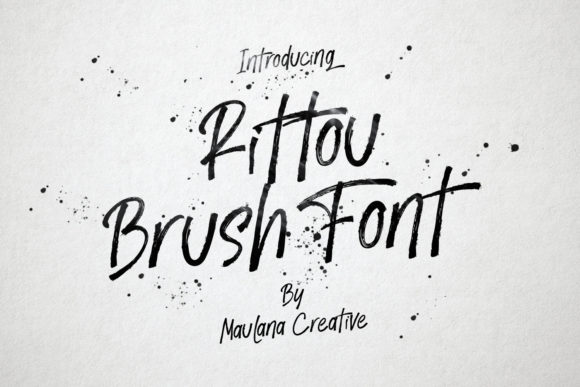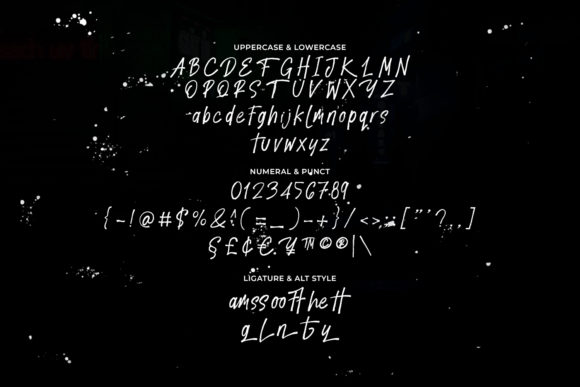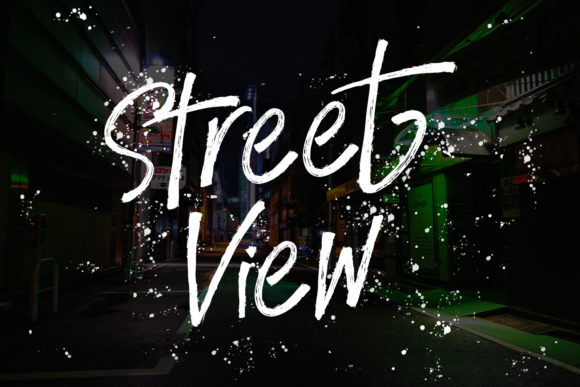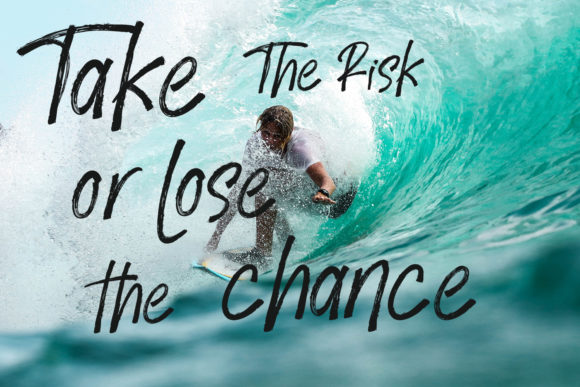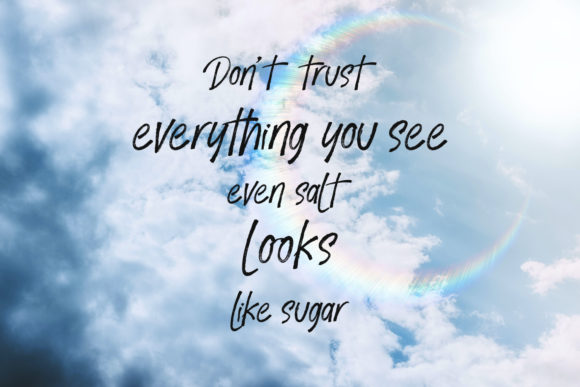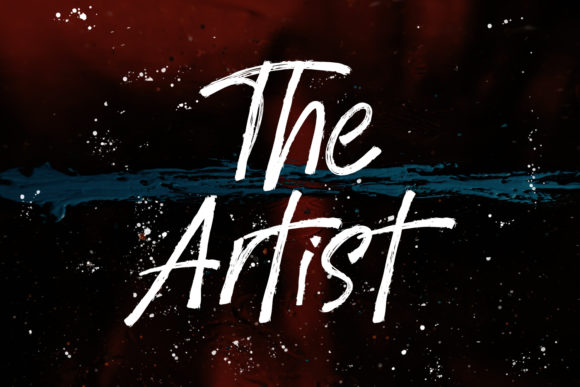
Introduction to Rittou Font
Give your designs an authentic brush handcrafted feel.
โRittou Brush Fontโ is perfectly suited to signature, stationery, logo, typography quotes, magazine or book cover, website header, flyer, clothing, branding, packaging design and more This font available: โ Rittou (OTF) โ Rittou (TTF).
Key Features of Rittou Font